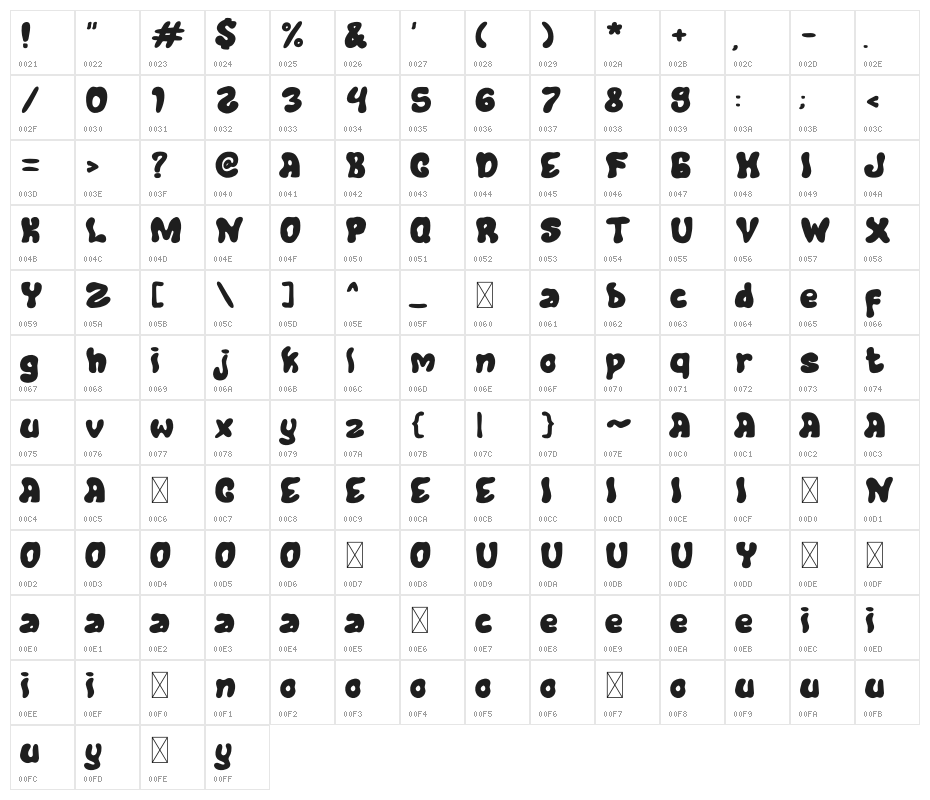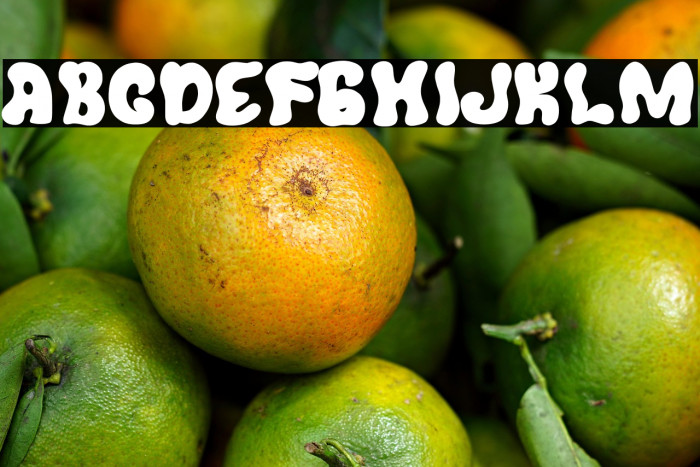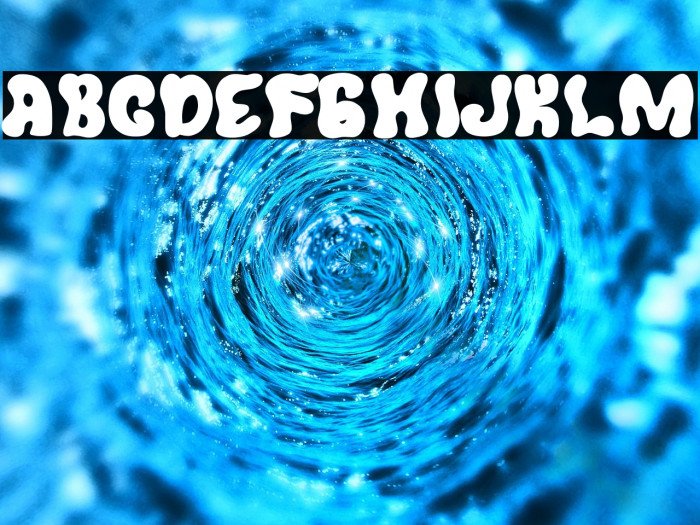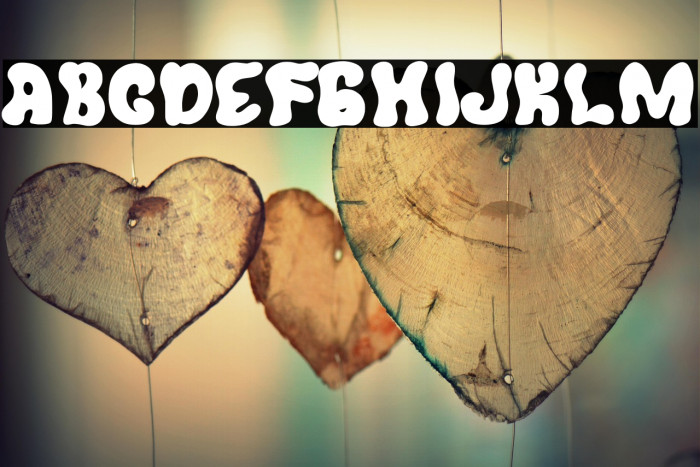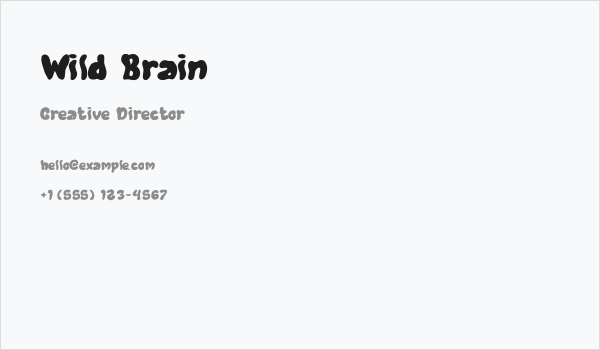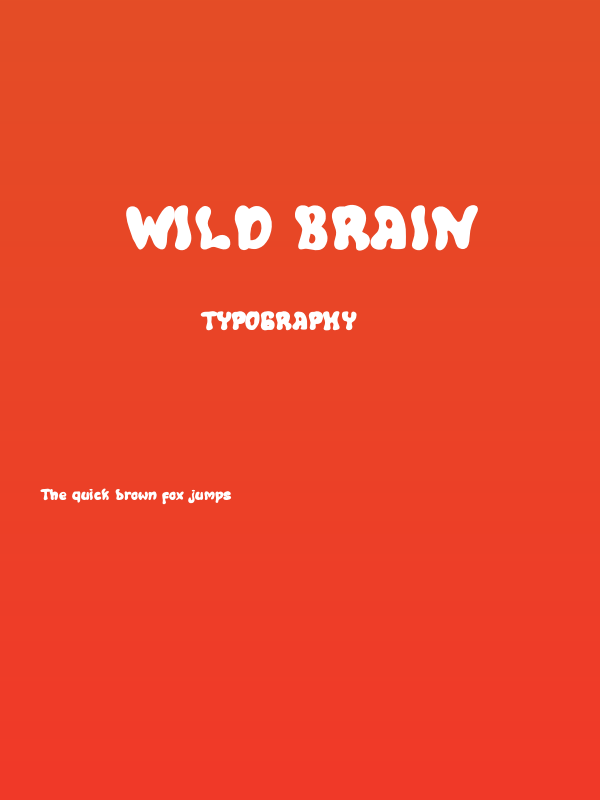
Wild Brain Font
Wild Brain Description
This font features a playful and bold design with rounded, bubbly characters that convey a sense of fun and creativity. The letters are thick and have a soft, organic feel, making them stand out with a unique, almost cartoonish appearance. The numbers and special characters follow the same style, ensuring consistency across all elements. Its whimsical nature makes it ideal for projects that require a touch of humor or lightheartedness.
| Overall Style | Playful, Whimsical |
| Use Case | Logos, Posters, Headlines |
| Proposed Projects | Ideal for children's books, playful branding, party invitations, and creative posters. |